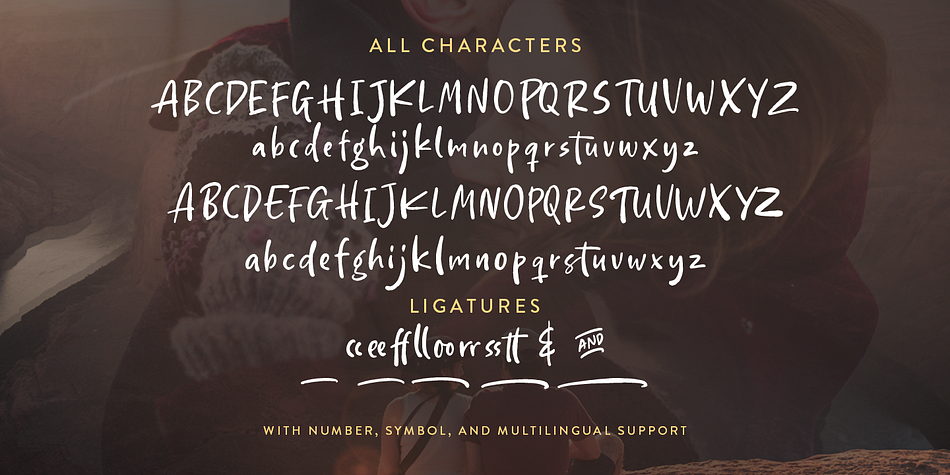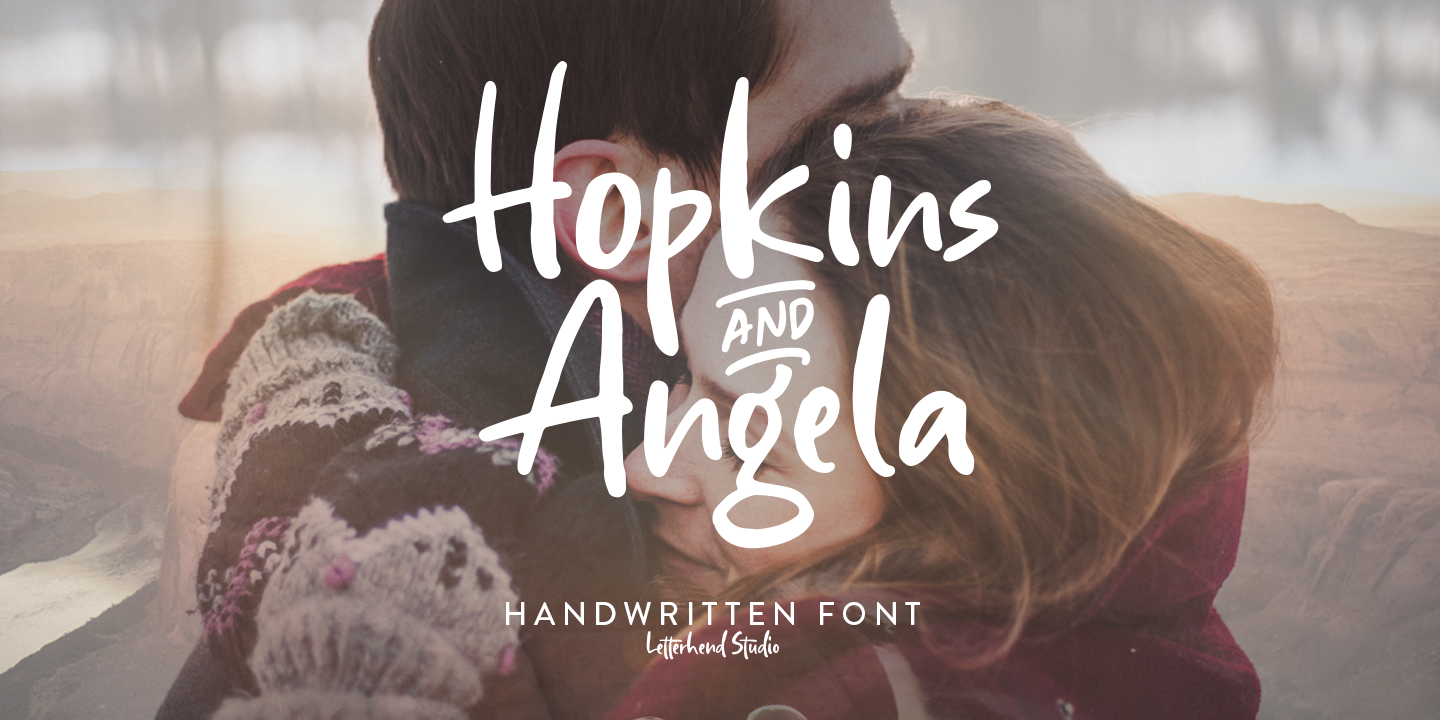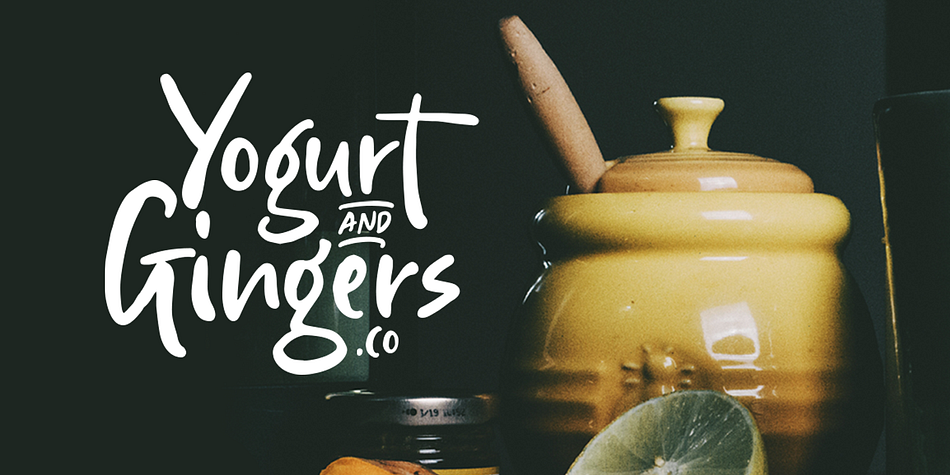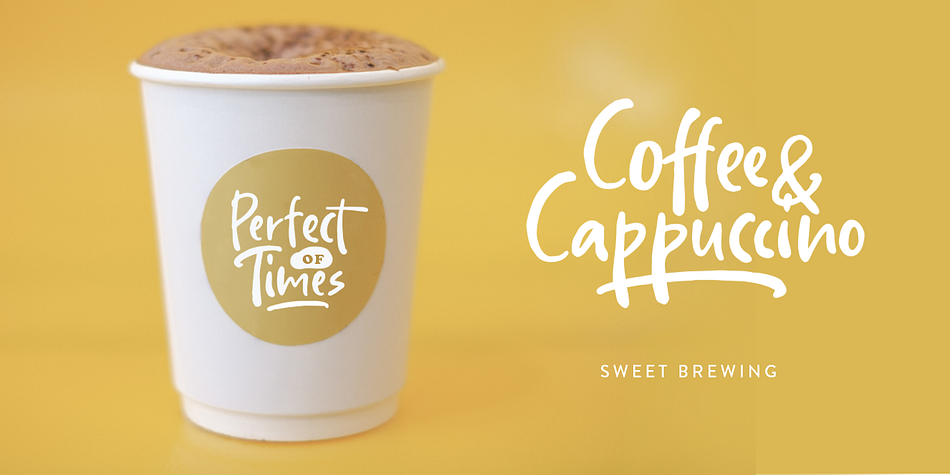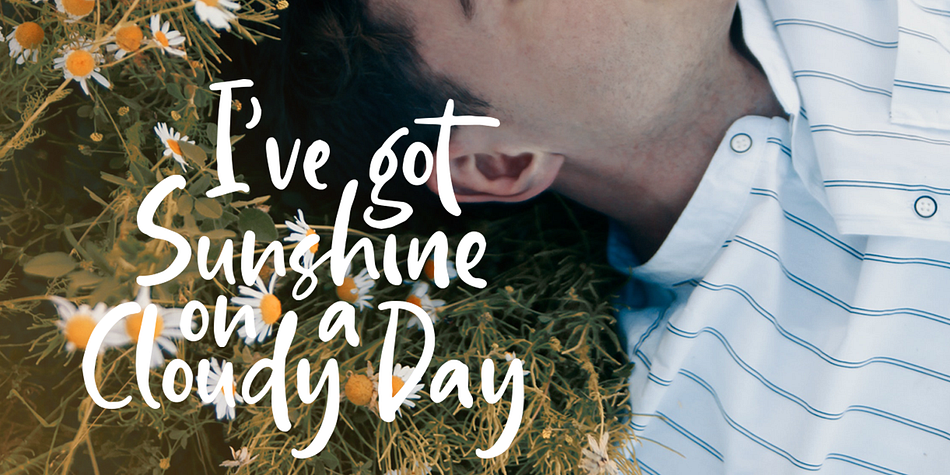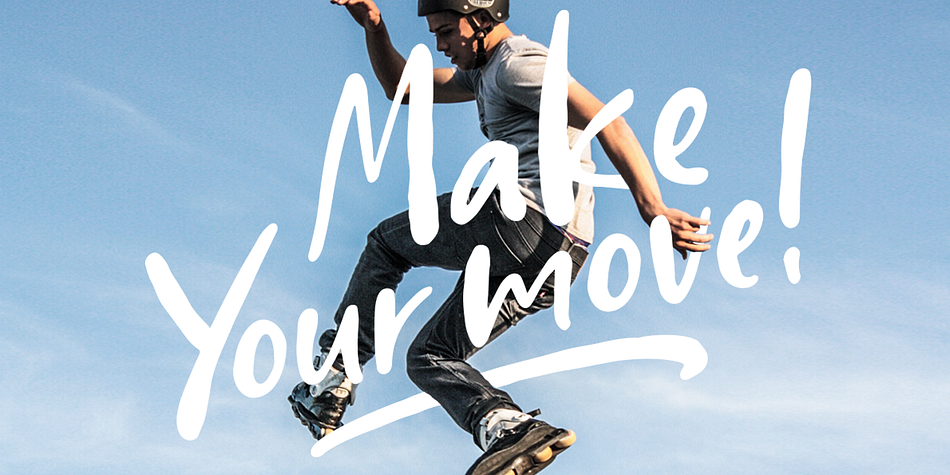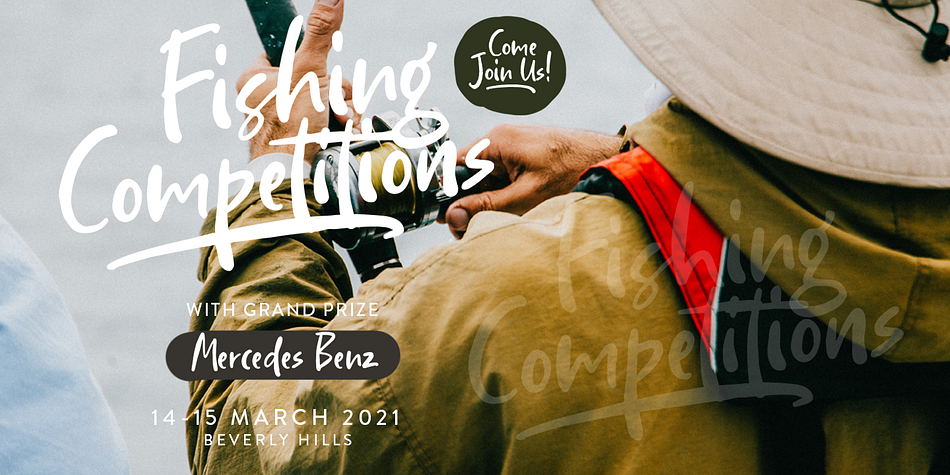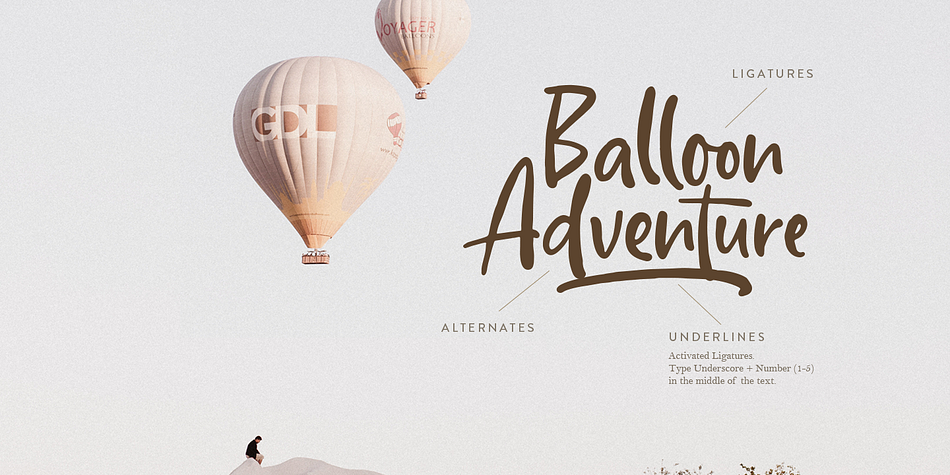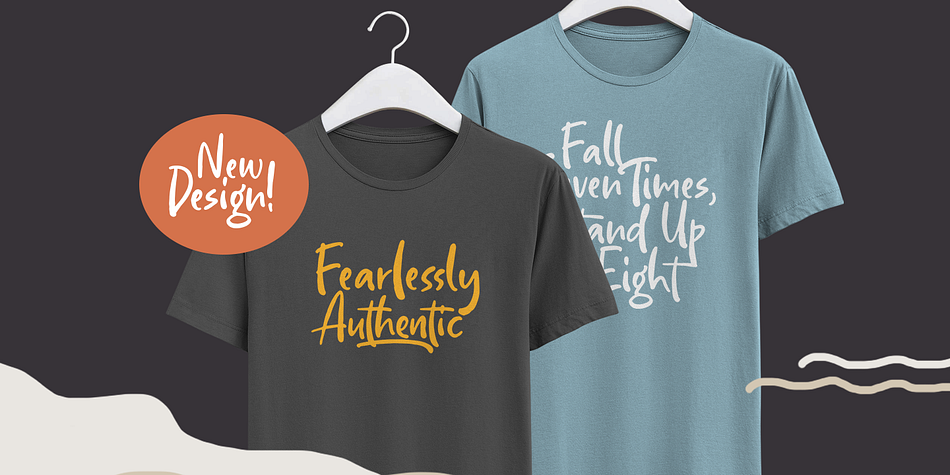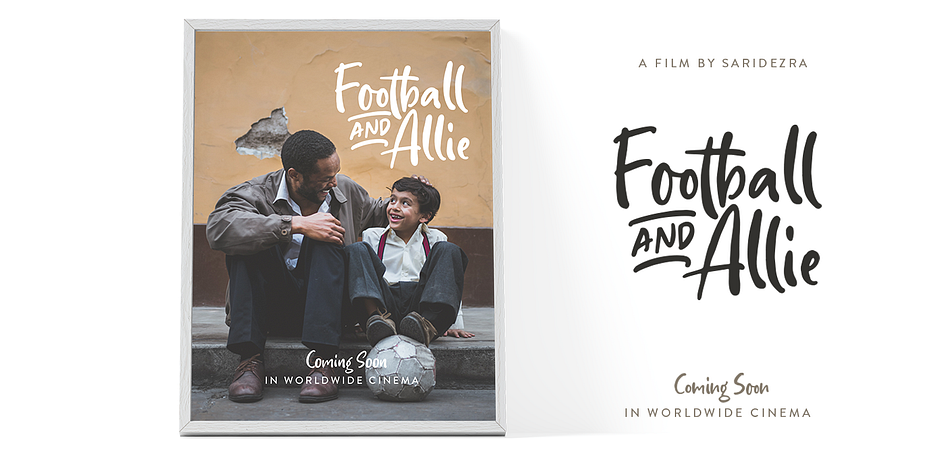
Designed by Hendry Juanda, Hopkins Angela is a brush display and hand drawn font published by Letterhend Studio.
Say hi to Hopkins and Angela, a casual handwritten font that will convey your messages with personal touch. It comes with underlines which you can access using the opentype feature.
- ligatures
- alternates
- swashes